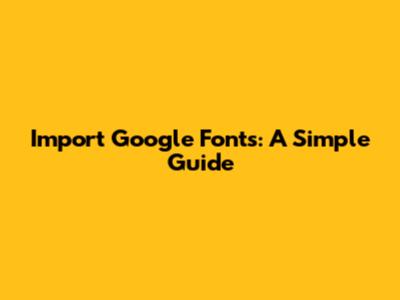
- Huge Variety: Seriously, the selection is incredible. Whether you're looking for a sleek and modern sans-serif, a classic serif, a playful script, or something totally unique, Google Fonts has got you covered. You'll find the perfect font to match your project's aesthetic.
- Easy to Implement: Google Fonts makes it super easy to add fonts to your website or application. They provide the code snippets you need, and it's as simple as copying and pasting. No need to mess with complex font files or server configurations.
- Web Optimized: These fonts are designed to load quickly on the web, which is crucial for a good user experience. Slow-loading fonts can make your website feel sluggish, and nobody wants that!
- Cross-Browser Compatibility: Google Fonts work seamlessly across all major web browsers, so you don't have to worry about compatibility issues. Your fonts will look great no matter how your visitors are accessing your site.
- Improved Readability and Aesthetics: Using the right font can dramatically improve the readability and overall look of your project. A well-chosen font can make your text more engaging and easier to read, which keeps your audience hooked.
- Head over to Google Fonts: Open your web browser and go to fonts.google.com. This is your font playground!
- Browse and Choose Your Font(s): Take your time to explore the vast library of fonts. You can use the filters on the left-hand side to narrow down your search by categories (serif, sans-serif, etc.), font properties (thickness, slant, width), and languages. Click on a font you like to see more details and examples.
- Select Your Styles: On the font's page, you'll see different styles (e.g., Regular 400, Bold 700, Italic 400). Choose the styles you need for your project. It's a good idea to stick to only the styles you'll actually use to keep your website loading quickly. Click the "+ Select this style" button next to each style you want.
- Grab the Embed Code: Once you've selected your styles, a panel will slide out from the right-hand side of the page. This panel contains the code you'll need to embed the fonts into your project. There are two main ways to embed:
<link>Tag (Recommended): This method adds a<link>tag to the<head>of your HTML document. This is the recommended approach because it's generally the most efficient and allows the browser to start downloading the font files early in the page loading process.@importRule: This method uses the@importrule in your CSS file. While it works, it's generally considered less efficient than the<link>tag method because it can delay the loading of other CSS styles.
- Copy and Paste the Code: Copy the code snippet provided in the panel. If you're using the
<link>tag method, copy the<link>tags. If you're using the@importrule, copy the@importstatement. - Add the Code to Your Project:
<link>Tag: Paste the<link>tags into the<head>section of your HTML file, before your own CSS stylesheets.@importRule: Paste the@importstatement at the very top of your CSS file.
- Use the Font in Your CSS: Now that you've embedded the font, you can use it in your CSS rules. Google Fonts provides the CSS rule to use for each font in the same panel where you grabbed the embed code. It looks something like this:
font-family: 'Your Font Name', sans-serif;orfont-family: 'Your Font Name', serif;. Copy this rule and paste it into your CSS styles for the elements you want to style with the font. -
Choose Your Font(s) on Google Fonts: Follow steps 1-3 from the website method to select your fonts and styles.
-
Download the Font Files: In the panel on the right-hand side, there's a button that says "Download all". Click this button to download a ZIP file containing the font files in various formats (TTF, OTF, WOFF, WOFF2). It’s really important that you use WOFF and WOFF2 because these file types provide for the best compression and browser support.
Unzip the Files: Extract the contents of the ZIP file to a folder on your computer.
-
Upload to Your Server: Create a folder in your website's directory (e.g.,
fonts/) and upload the font files to this folder. Make sure that you upload the right files in the right formats, typically WOFF and WOFF2 for optimal web performance. -
Create a CSS Stylesheet: You'll need to define CSS rules using the
@font-facedeclaration to tell the browser where to find the font files. Here's an example:@font-face { font-family: 'Your Font Name'; src: url('fonts/your-font-name.woff2') format('woff2'), url('fonts/your-font-name.woff') format('woff'); font-weight: normal; font-style: normal; }Replace
'Your Font Name'with the actual name of your font and adjust thesrcURLs to point to the correct location of your font files on your server. You can also define thefont-weightandfont-styleproperties to match the different styles you downloaded. -